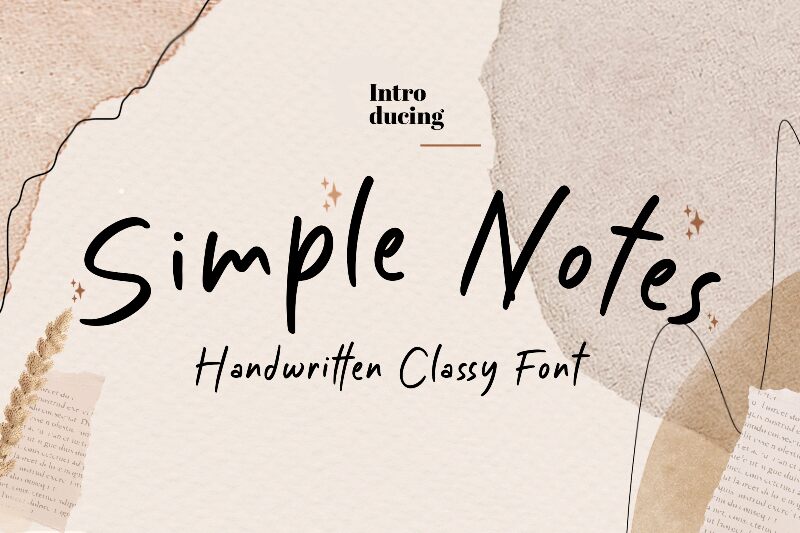
Simple Notes font by Fontherapy Studio is a free handwritten font with a casual elegance which adds instant charm to modern typography. Its relaxing curves and personalized aesthetic mimic actual handwriting, creating connections with the audience while inviting them to read both the main elements of the display and their small captions.
Versatile in use, it can be featured for invitation designs, logotypes, posters, business cards, social media posts and banners and other projects that need a modern yet authentic charm. Edit shops signs or branding designs with Simple Notes or simply share quotes that lighten up everyone’s days!